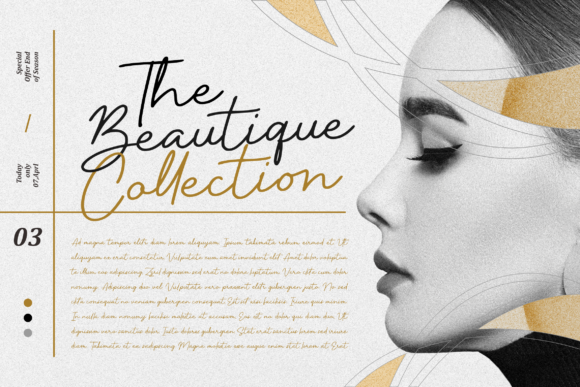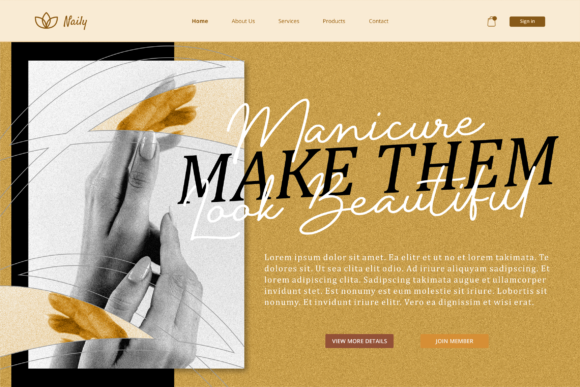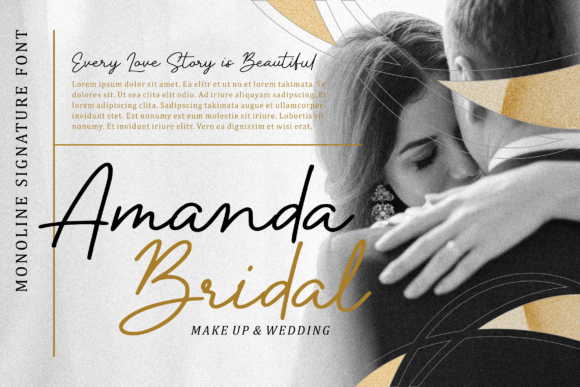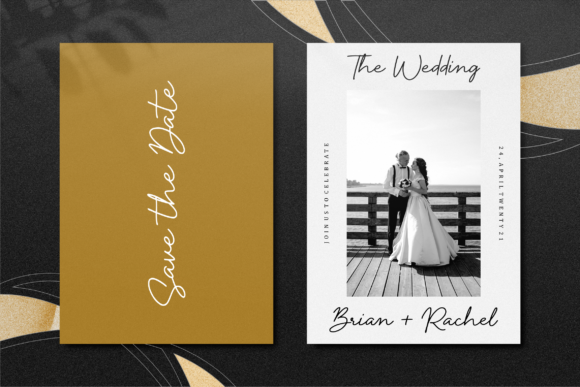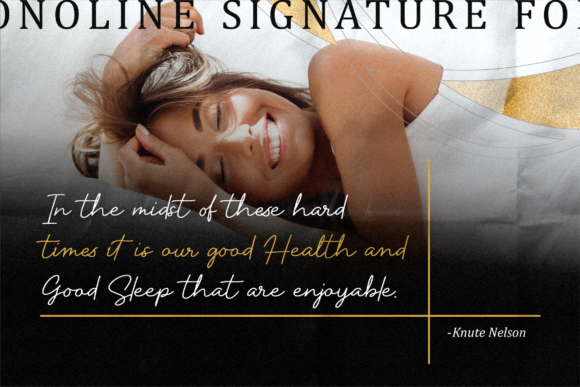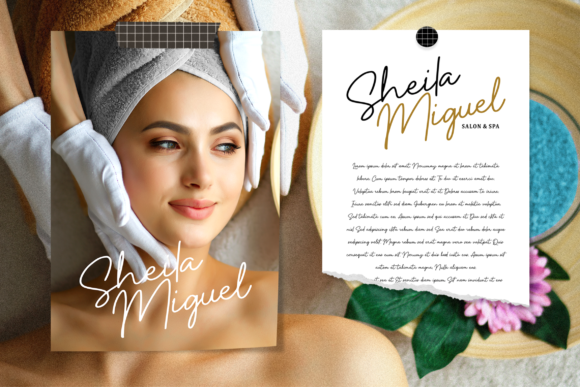
Introduction to Mandy William Font
As you sit at your desk, staring at a blank canvas, the words you’re trying to convey refuse to come together. The cursor blinks endlessly, taunting you with its silence. It’s moments like these that we crave the perfect font to bring our creative project to life. And that’s exactly what we’re going to explore today – the Mandy William Font.
This elegant handwritten font has been a game-changer for designers seeking a high-quality, versatile design resource. With its beautiful and well-balanced characters, the Mandy William Font is the perfect addition to any creative endeavor, whether you’re working on a free download or a commercial project.
Its transparent background and delicate flair make it an ideal choice for designers looking to add a touch of sophistication to their work. And the best part? You can download the Mandy William Font and start using it right away, bringing your creative vision to life with ease.
Key Features of Mandy William Font
- High-quality design resource suitable for creative projects, including graphic design, web design, and print media.
- Features a transparent background, allowing for easy integration into designs with complex backgrounds.
- Includes a range of characters, including uppercase and lowercase letters, numbers, and punctuation marks, making it a versatile font.
- Designed with a modern and elegant style, perfect for adding a touch of sophistication to any creative project.
Honest Review: Mandy William Font
I recently had the chance to work with the Mandy William Font, and I must say it’s been a great addition to my design resources. This free download has been a game-changer for my creative projects.
- ✨ Elegant and modern aesthetic: The Mandy William Font has a beautiful, sophisticated design that adds a touch of class to any project.
- ✨ High quality: The font is crisp and clear, making it perfect for both digital and print designs.
- ✨ Versatile: I’ve used this font for a variety of projects, from logos to menus, and it’s always delivered great results.
- ⚠️ Limited character set: The Mandy William Font only includes a basic set of characters, which can be a limitation for more complex designs.
- ⚠️ No transparent background option: While this isn’t a deal-breaker, it would be nice to have the option to use a transparent background for more creative freedom.
Overall, I’m really impressed with the Mandy William Font. It’s a high-quality design resource that’s perfect for any creative project. While it has some limitations, I think it’s a great addition to any designer’s toolkit.
Using Mandy William Font in Creative Projects
The Mandy William Font is ideal for high-quality creative projects that require a unique and elegant touch. With its transparent background, this font is perfect for overlaying text on images or creating stunning graphics.
Design Resource for Professionals
The Mandy William Font is a valuable design resource for professionals who need a high-quality font for their creative projects. Its versatility and sophistication make it an excellent choice for a variety of applications, including logos, brochures, and marketing materials.
Getting the Most Out of Mandy William Font
To get the most out of the Mandy William Font, experiment with different font sizes, colors, and styles. Combine it with other design elements, such as images and graphics, to create visually stunning and effective designs.
The Mandy William Font is commonly used in various design projects, including:
- Business cards and marketing materials.
- Logos and branding materials.